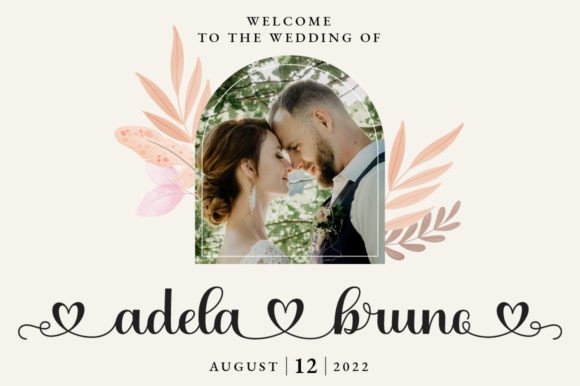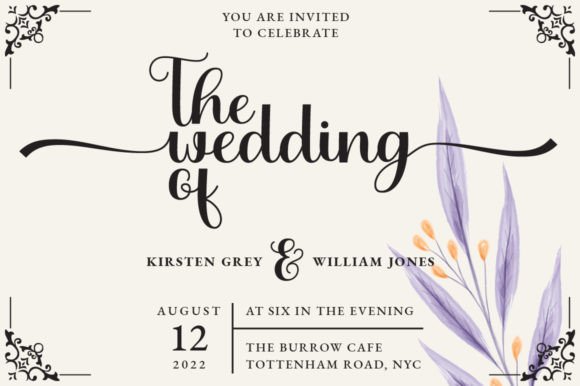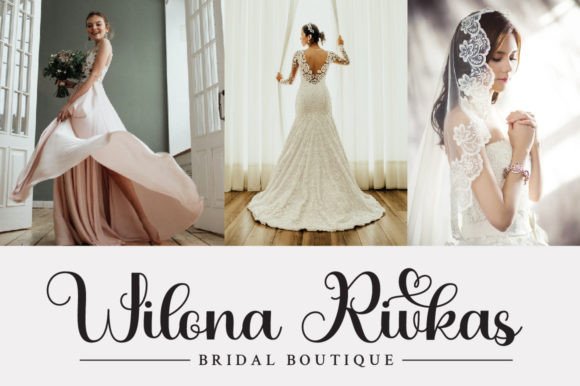
About Sometimes Font
Sometimes is a contemporary and romantically inclined calligraphy font, distinguished by its smooth and fluid handwritten flows. Designed with a touch of modern elegance, Sometimes proves to be an ideal choice for a variety of creative applications. Whether you’re crafting logos, wedding stationery, cards, gift designs, photography, watermarks, product packaging, or handwritten quotes, this font offers a versatile and sophisticated solution.
The smooth and flowing nature of Sometimes lends an organic and authentic feel to your designs. The romantic undertones embedded in the calligraphic strokes make it especially well-suited for projects that seek to evoke emotions, such as wedding stationery or heartfelt handwritten quotes.
In logo design, Sometimes adds a touch of sophistication. The modern and romantic elements of the font can help create a visual identity that is not only memorable but also resonates with the desired tone and personality of the brand.
For wedding stationery, Sometimes becomes an essential element in capturing the romantic ambiance of the occasion. Whether used in invitations, place cards, or other decorative elements, the font adds a layer of elegance that complements the celebration of love.
In the realm of cards and gift designs, Sometimes brings a personal touch. Its handwritten style imparts warmth and sincerity to messages, making the recipient feel the thoughtfulness behind the words.
Photography watermarks benefit from the graceful aesthetics of Sometimes. The font enhances the visual appeal of images, providing a signature touch that is both subtle and stylish.
Product packaging, with its emphasis on visual appeal, can benefit from the modern and elegant charm of Sometimes. The calligraphic elements contribute to a polished and sophisticated presentation.
Handwritten quotes come to life with Sometimes, as the font captures the essence of the words with a graceful and contemporary flair. This makes it an excellent choice for social media posts, inspirational content, or any context where impactful quotes are desired.
In summary, Sometimes is more than just a font; it’s a design tool that adds a modern, romantic, and handwritten aesthetic to your creative projects. Its versatility makes it suitable for a wide range of applications, ensuring that your designs are not only visually appealing but also convey the desired emotional resonance.